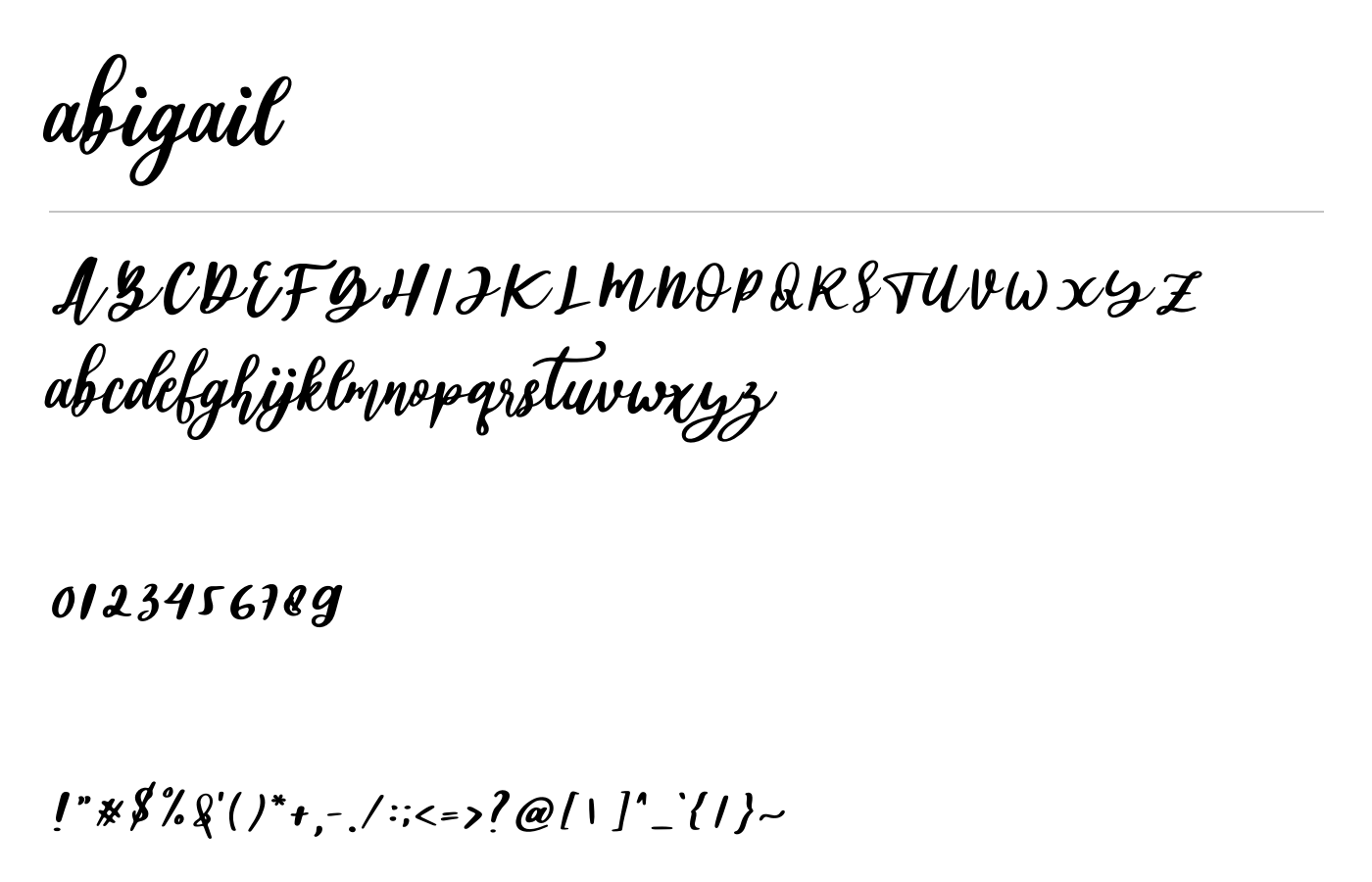
Abigail is a lively script font with a handwritten, calligraphic style that feels warm and personal. Its moderately bold strokes and flowing connections create an elegant yet playful character, making it ideal for invitations, branding, and creative projects that seek a friendly and stylish touch. With its clear letterforms and expressive details, Abigail works beautifully in both display use and short texts where a charming, casual flair is desired.
abigail Font
About abigail Font
| Font family | abigail Font |
| Designer | fahri rizal |